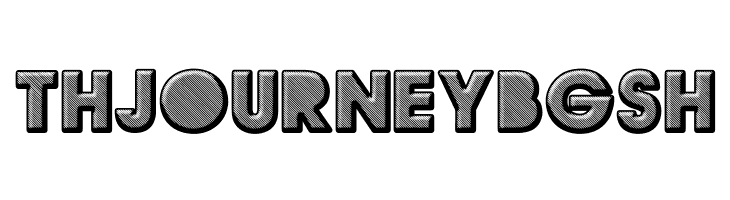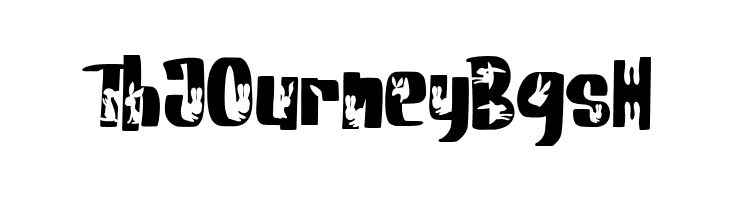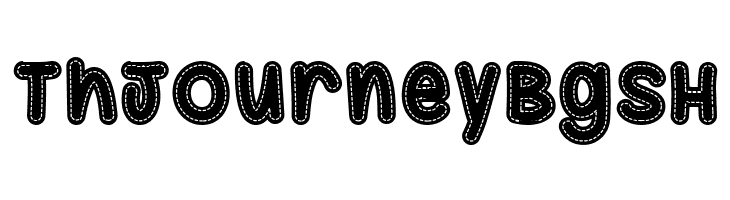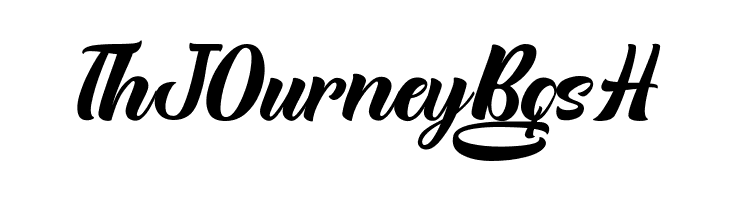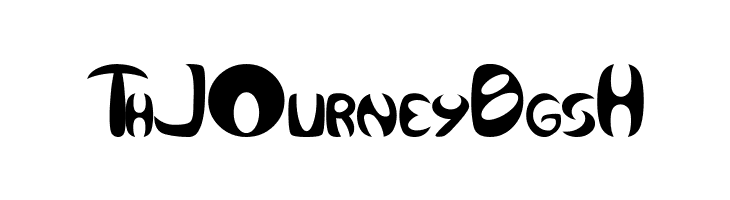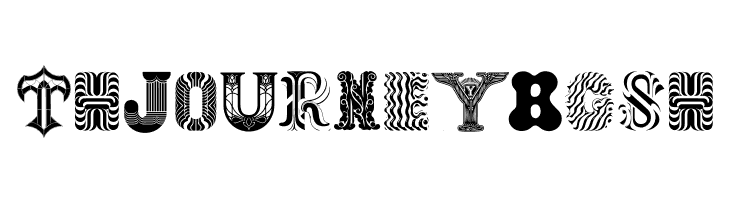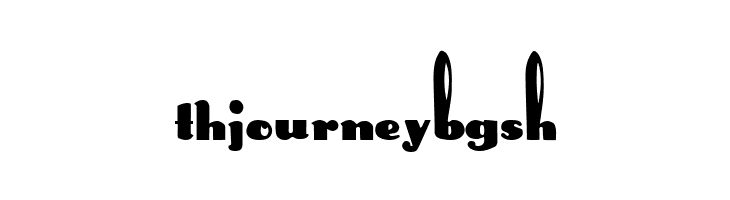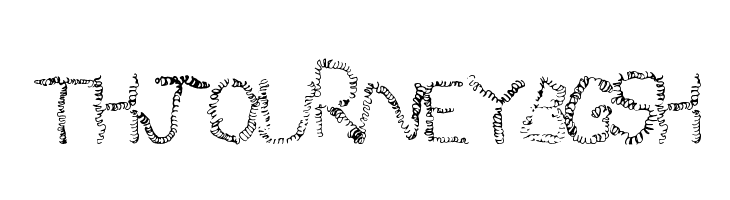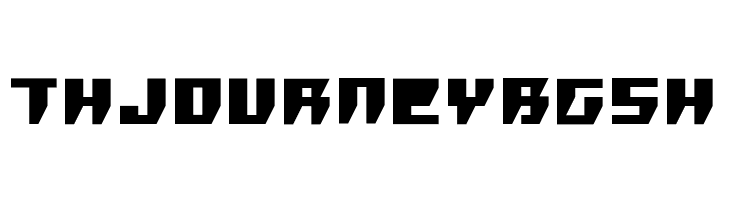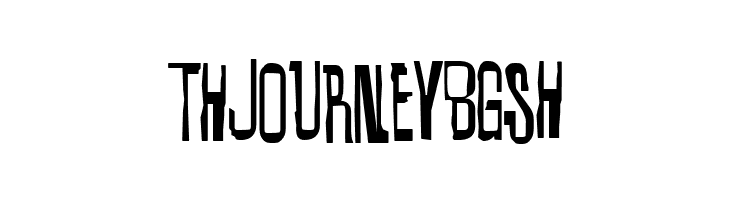
A bold, playful font with a 3D effect and shadowing.
A playful, bold font with a stitched outline effect, ideal for creative projects.
A bold, flowing script font with elegant curves and dynamic movement.
A playful, curly font with noodle-like strokes and a whimsical appearance.
A decorative and eclectic font with unique patterns for each uppercase letter.
A bold, decorative font with integrated rabbit silhouettes in each letter.